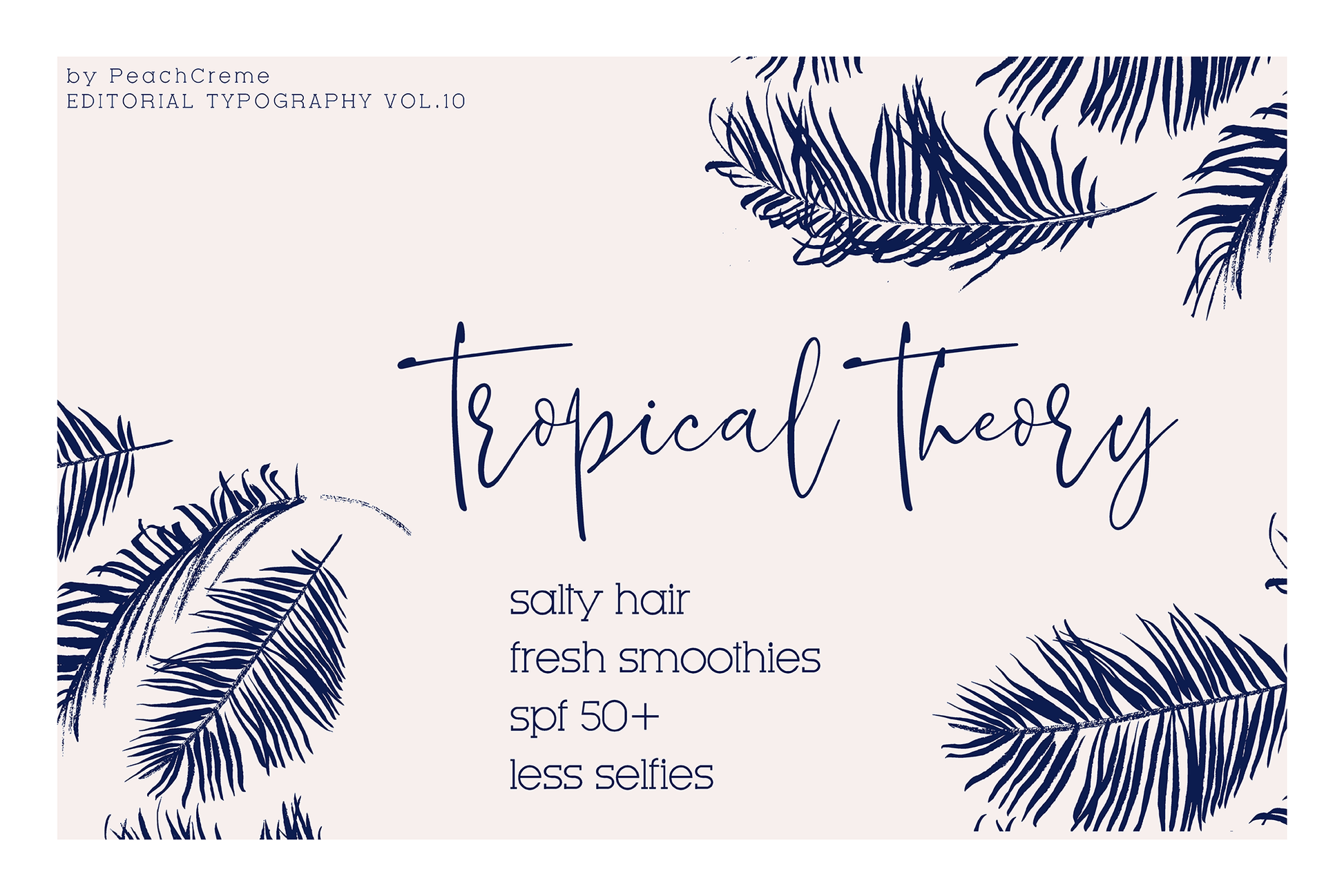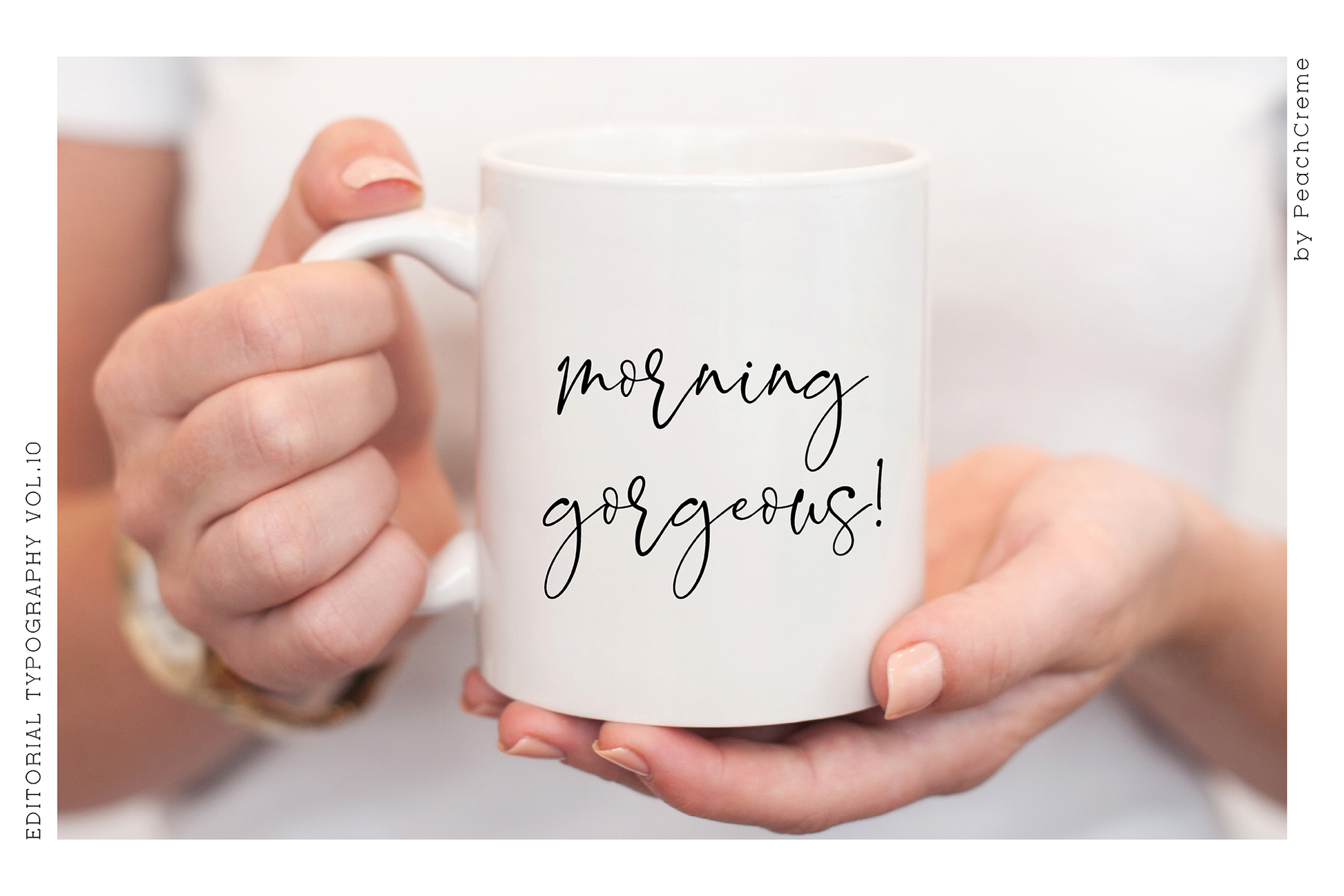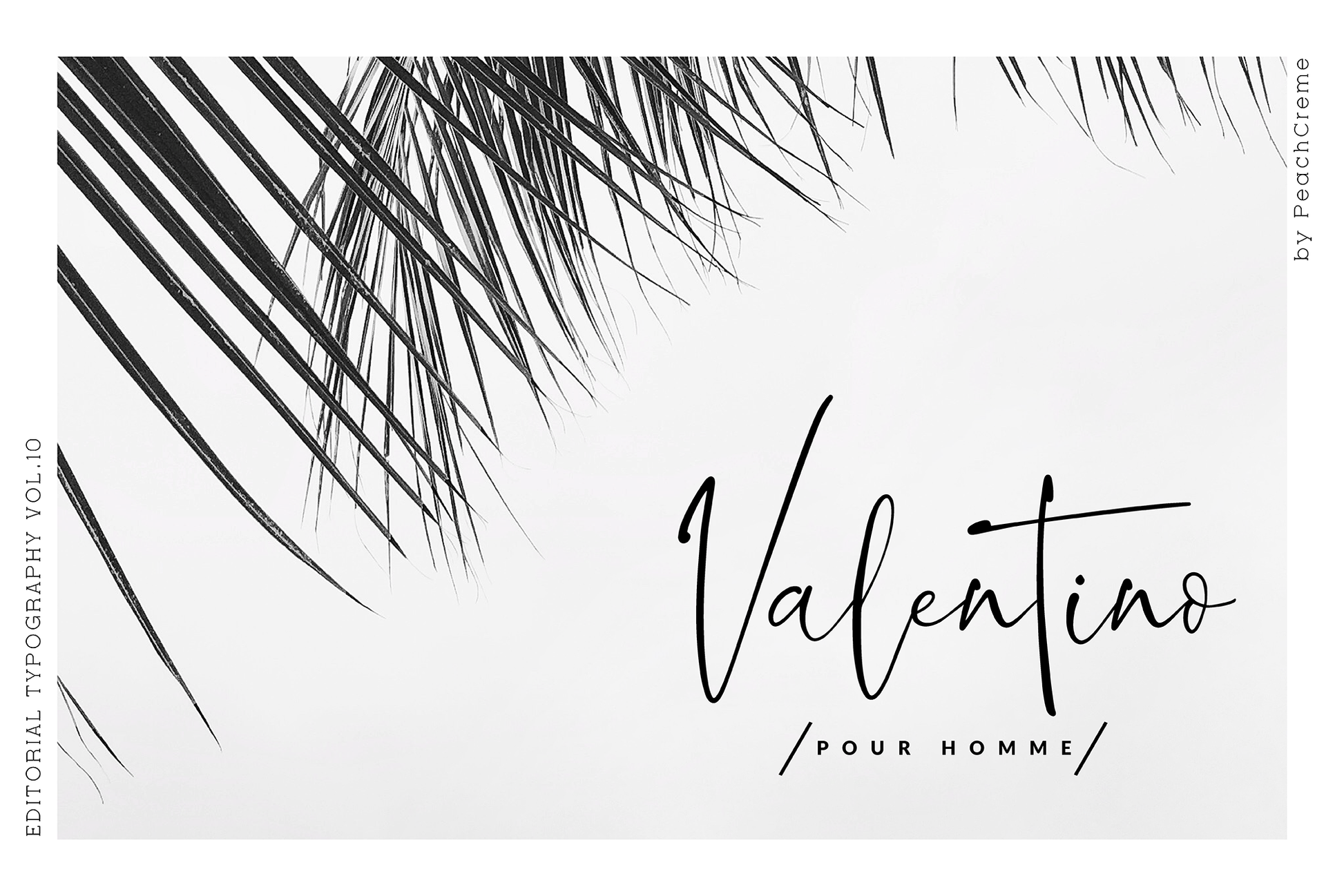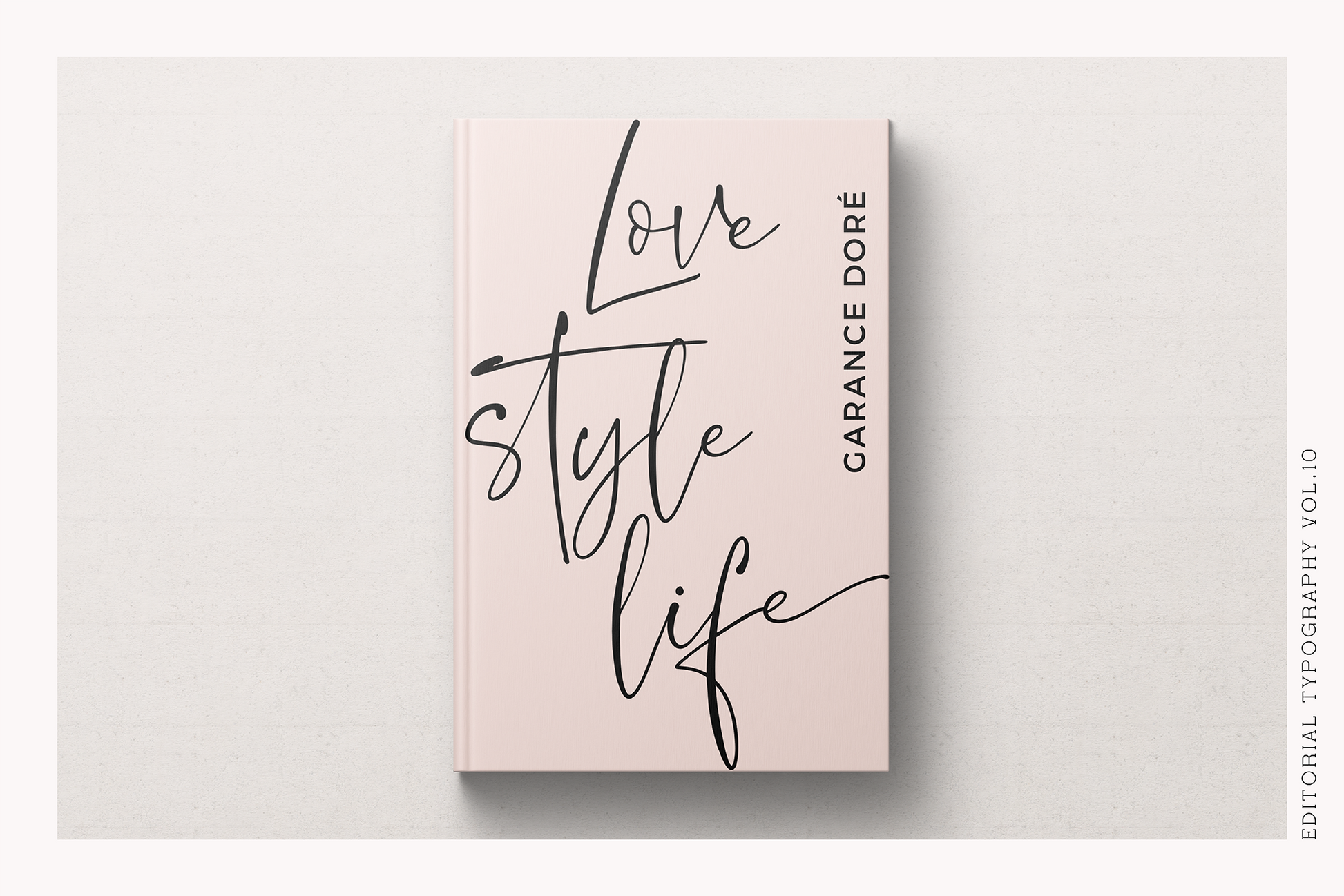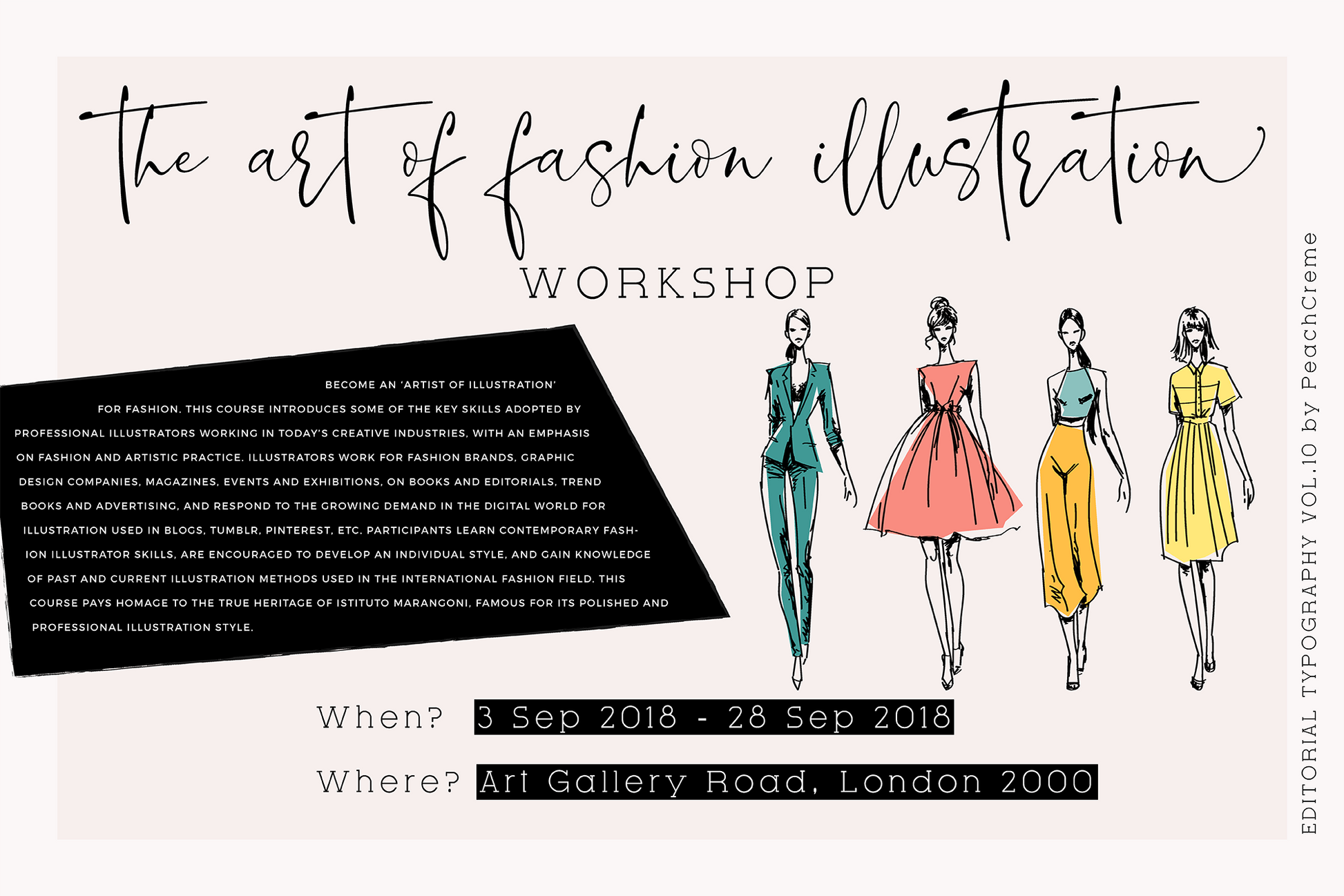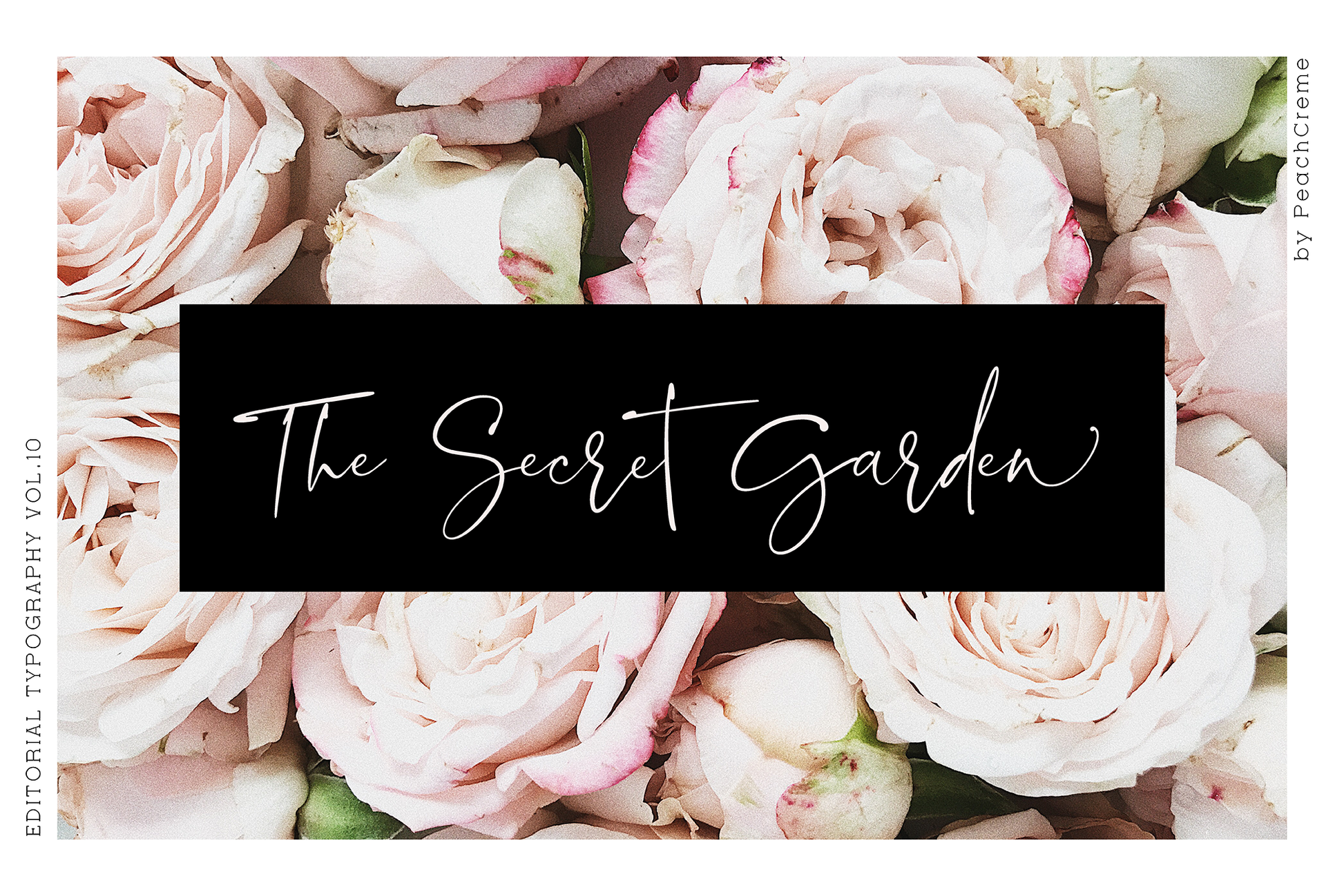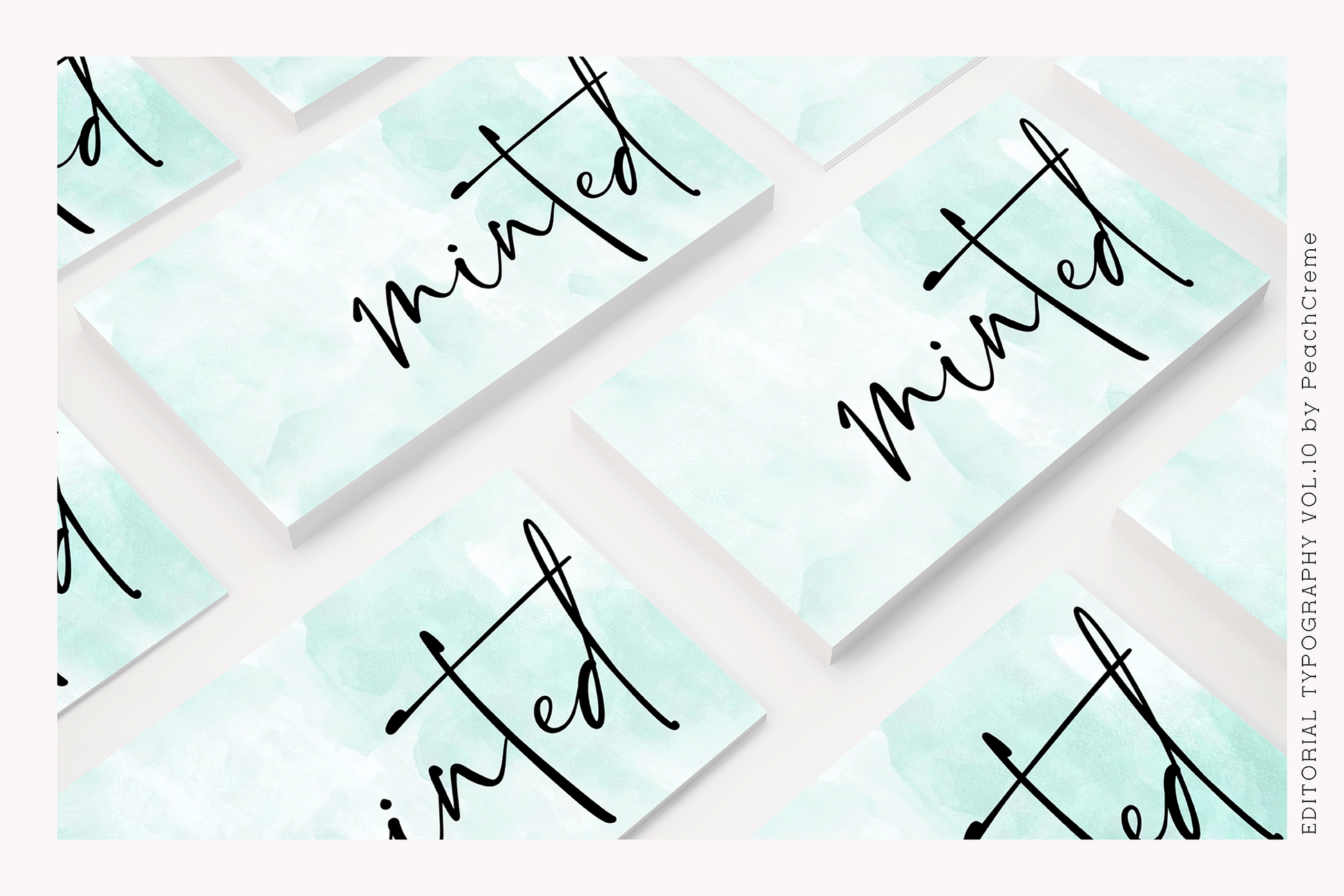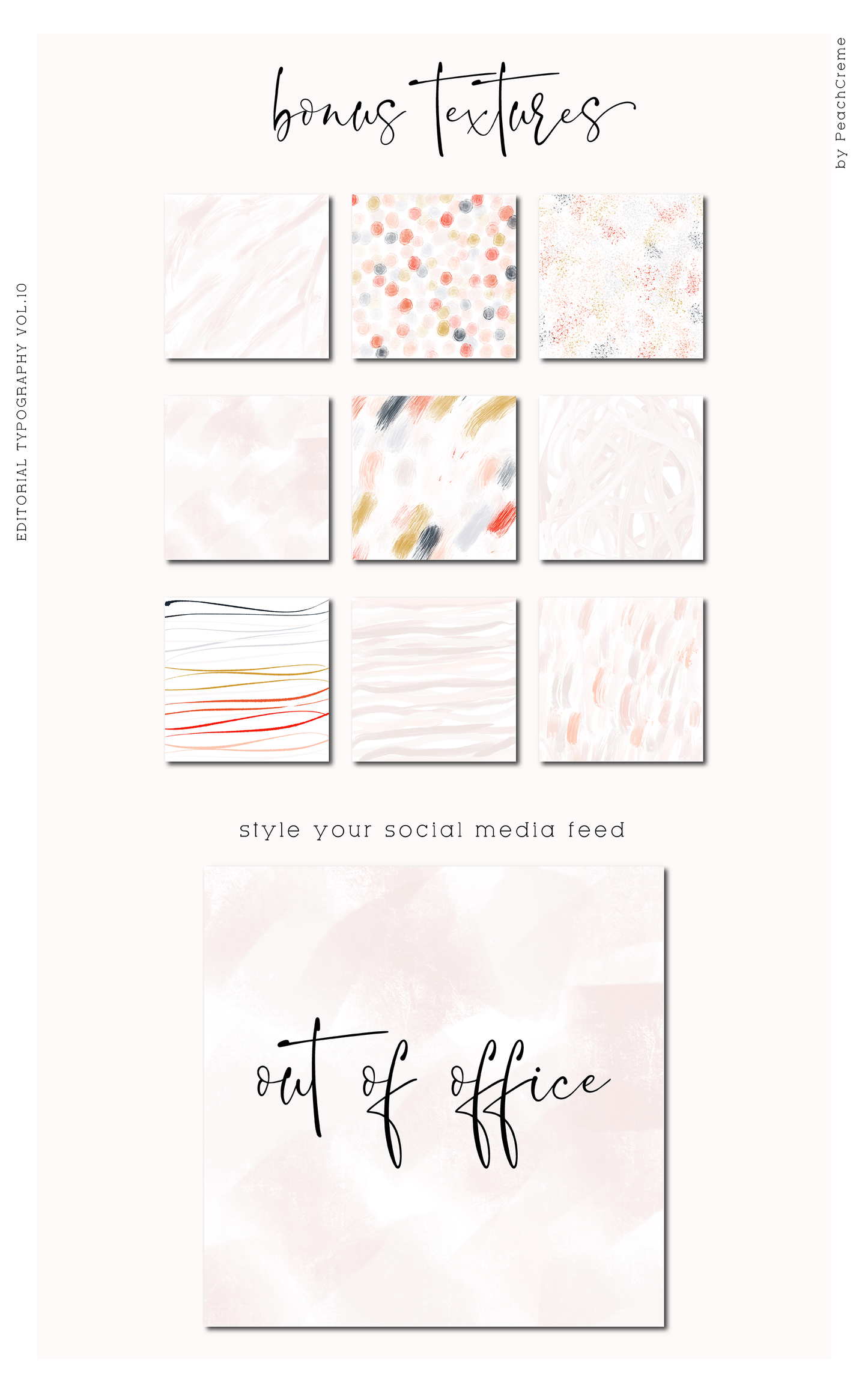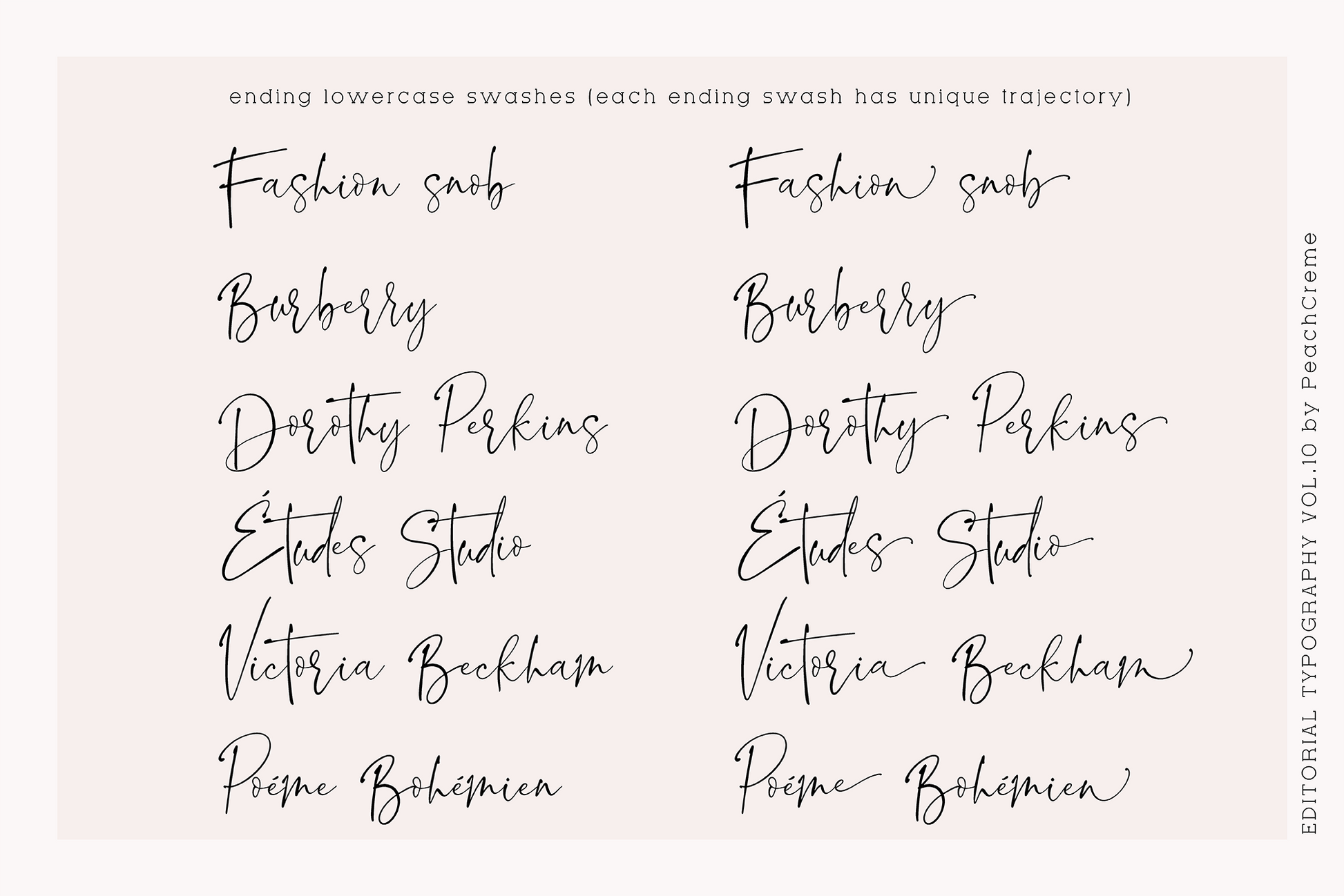
**EDITORIAL TYPOGRAPHY VOL.10**
Blush Society is a crème de la crème calligraphy font with contemporary wet ink effect with.It is born to be piece of branding, Instagram posts, and maybe for red wine label.
Blush Society includes full set of gorgeous uppercase and lowercase letters, numerals, a large range of punctuation and ligatures. All lowercase letters has has unique trajectory ending swashes , giving realistic hand-lettered style. As a bonus, it includes 9 texture-backgrounds, that can be used for Social Media Posts.